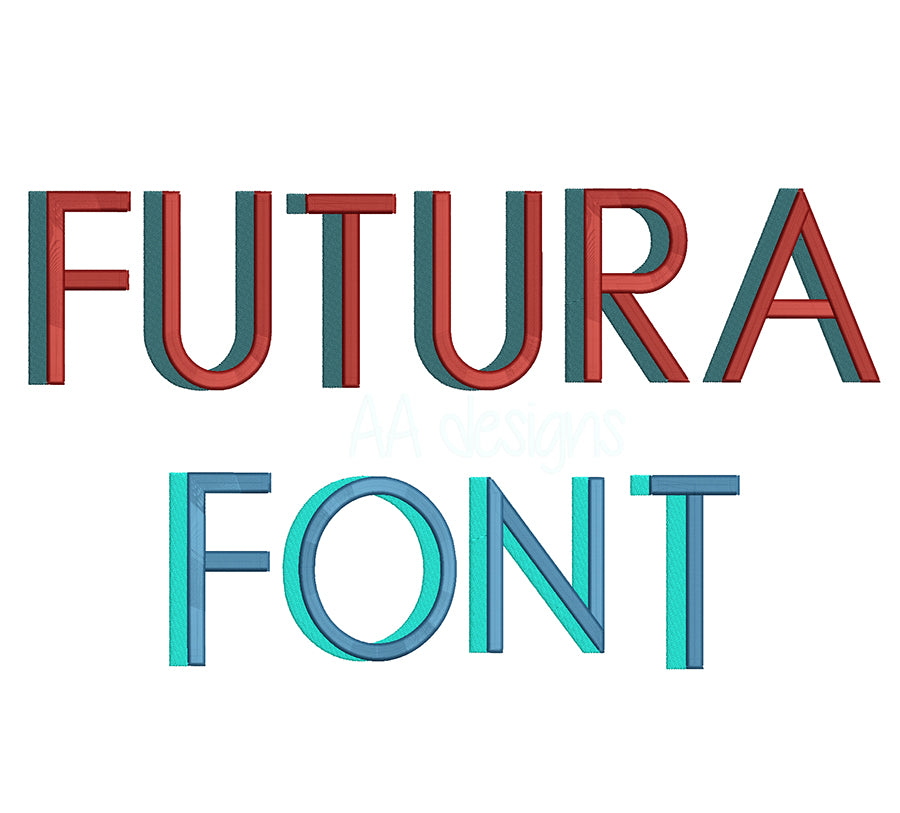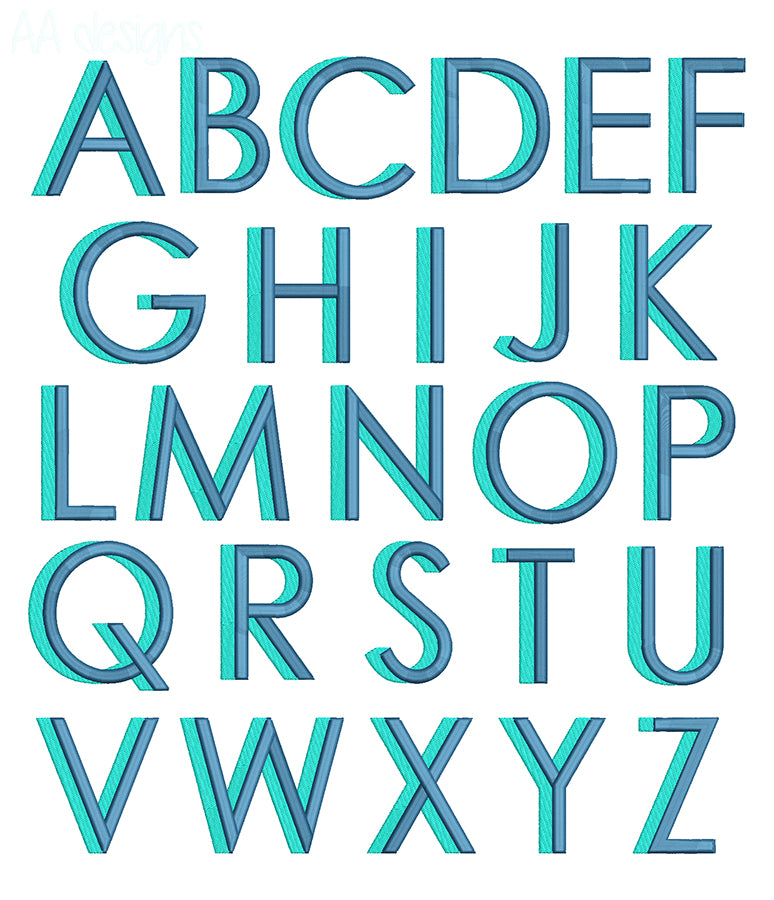
Futura Block Embroidery Font
Clean lines meet timeless design with the Futura Block Embroidery Font — a bold, geometric machine embroidery font inspired by the iconic Futura typeface, delivering sharp, modern letterforms that look professional on virtually any item. 🔲✨🧵
With its precise, uniform strokes and strong block structure, this font is a versatile workhorse for branded merchandise, corporate apparel, team uniforms, streetwear, hats, and any project that demands a clean, contemporary look.
- Geometric block design — stitches cleanly at a wide range of sizes
- Dense, even stitching for a sharp, professional finish on any fabric